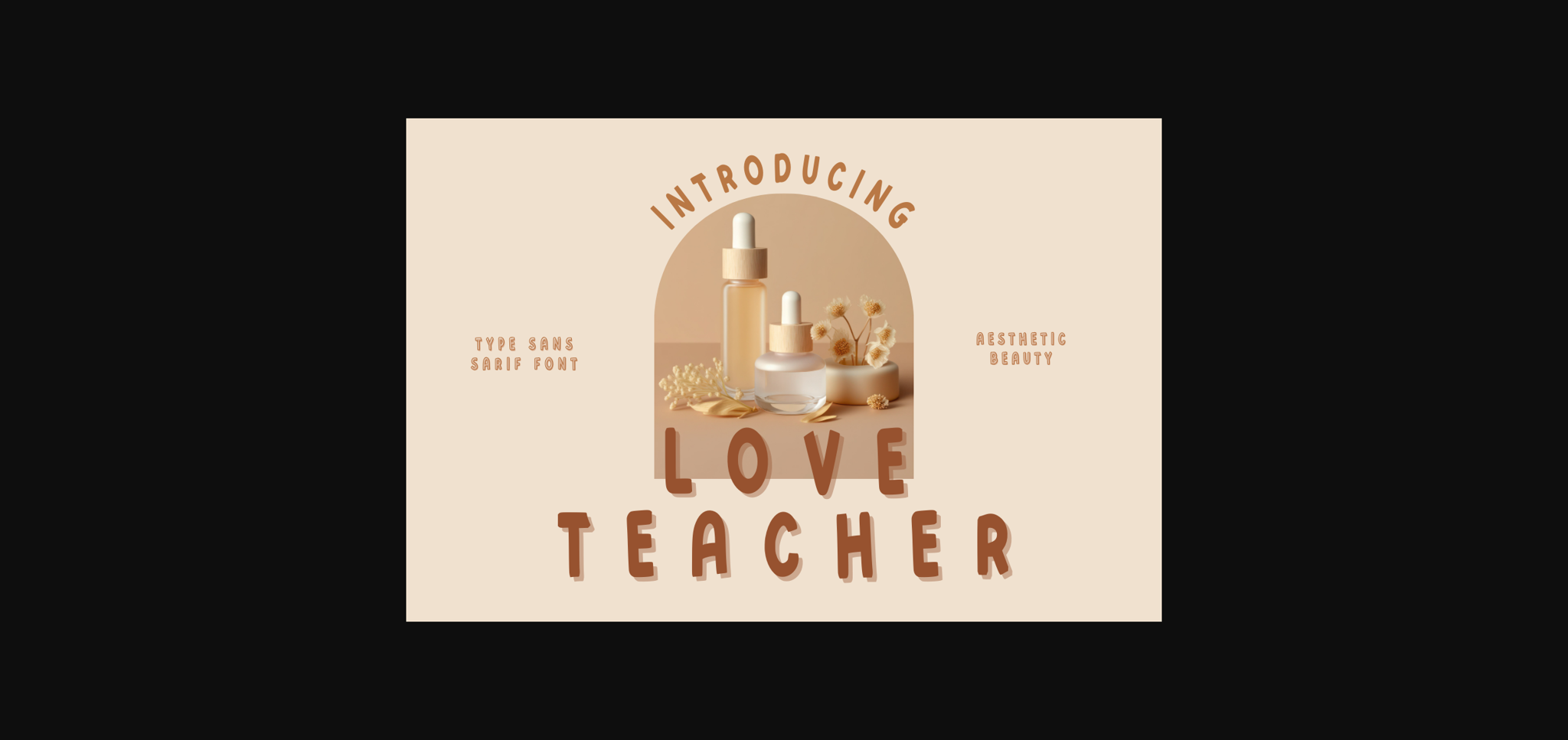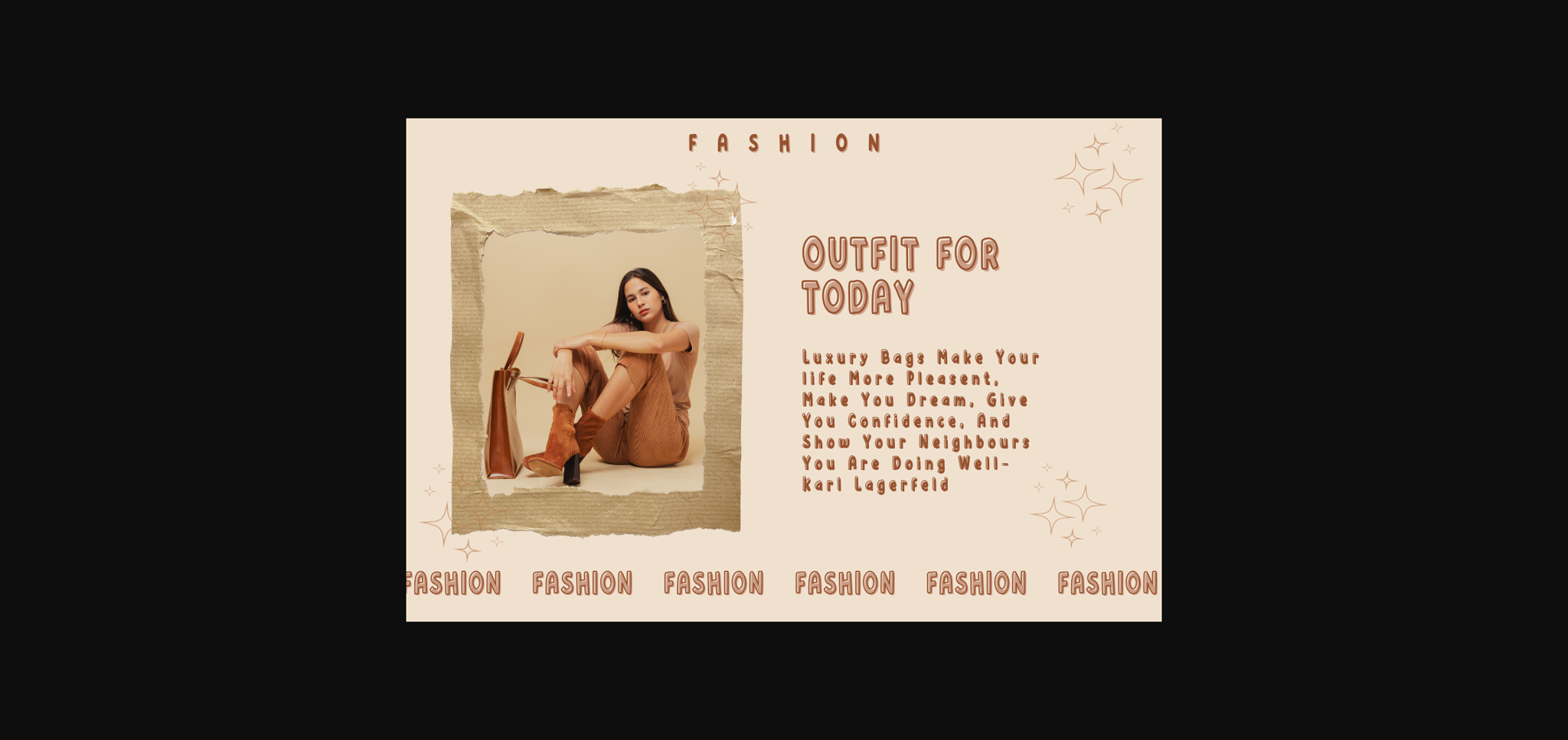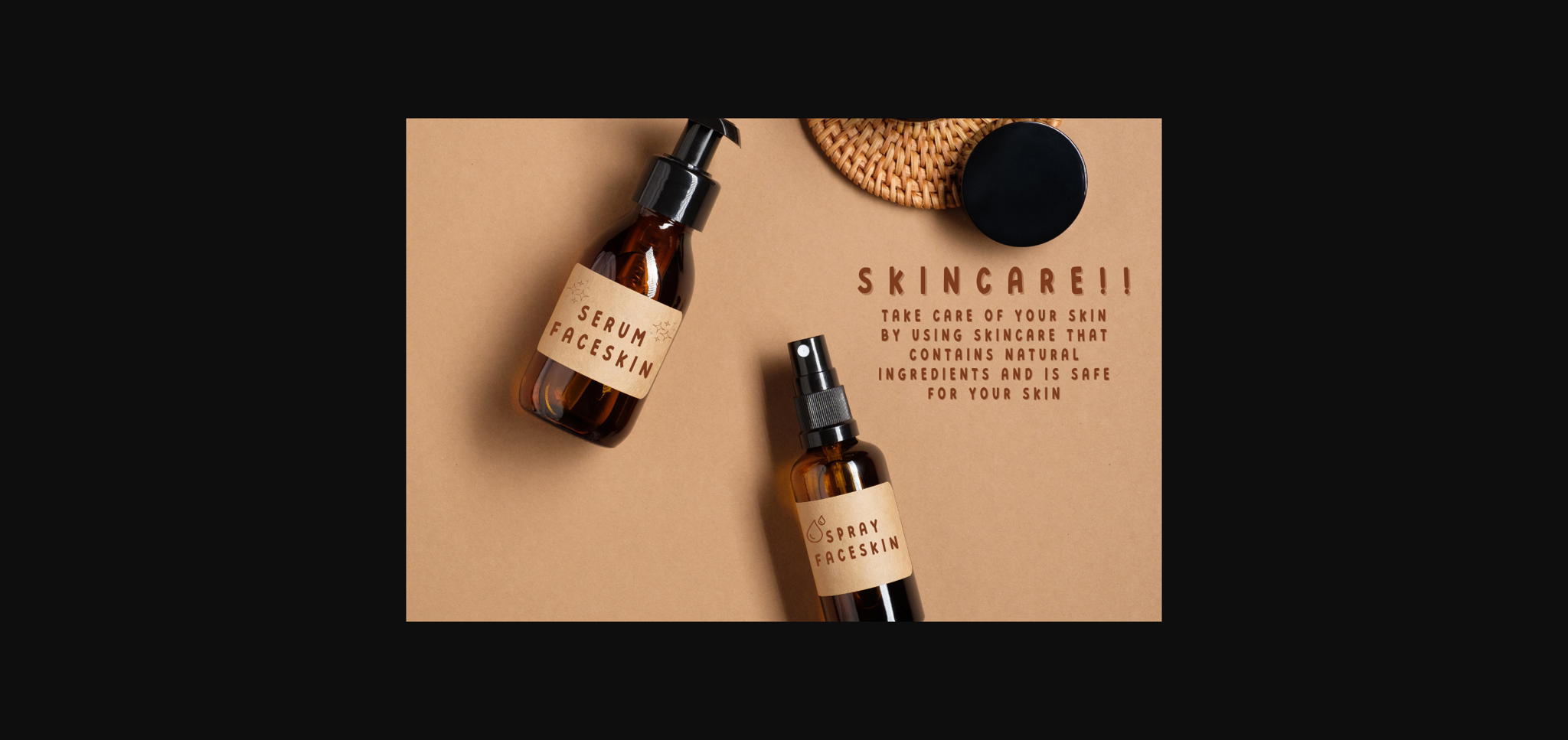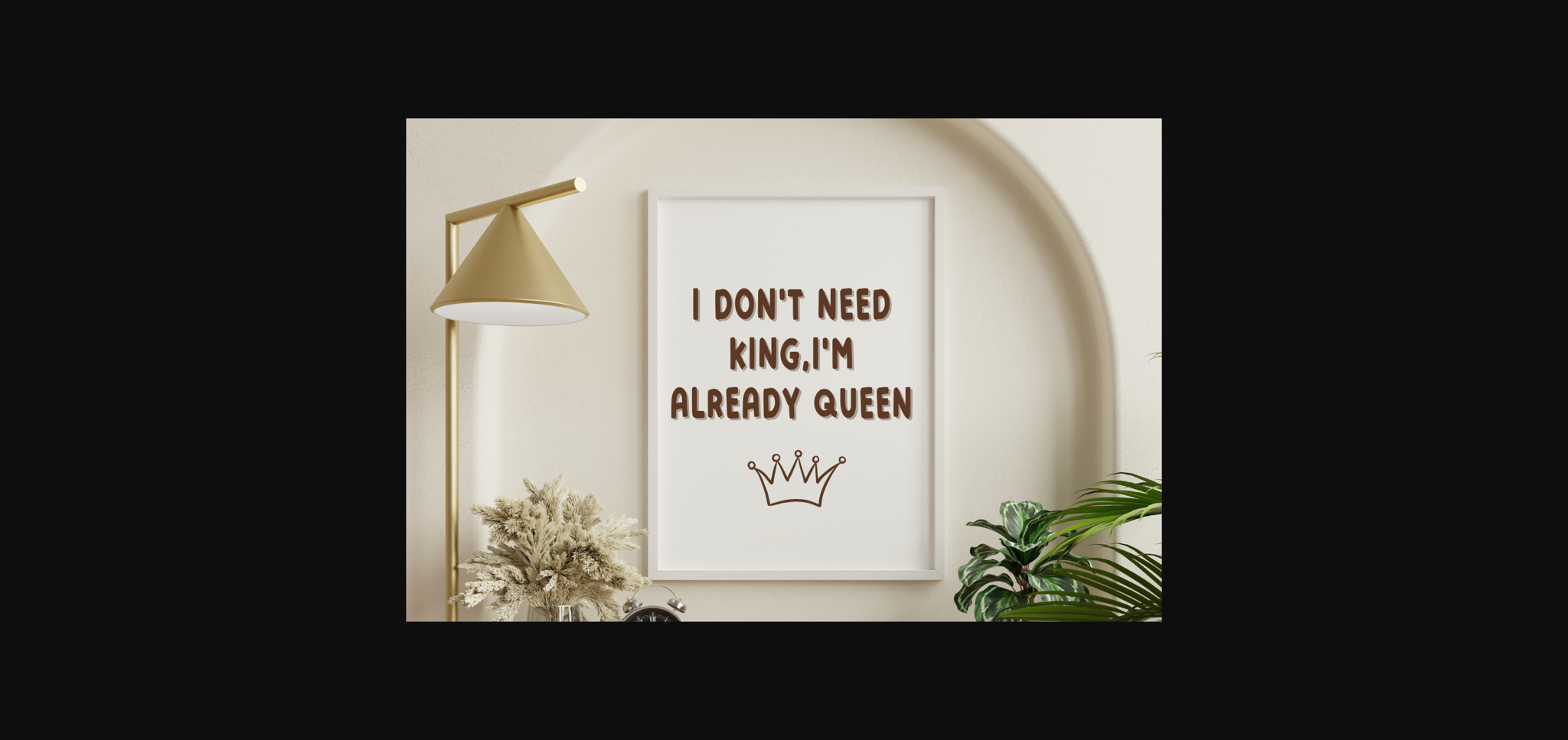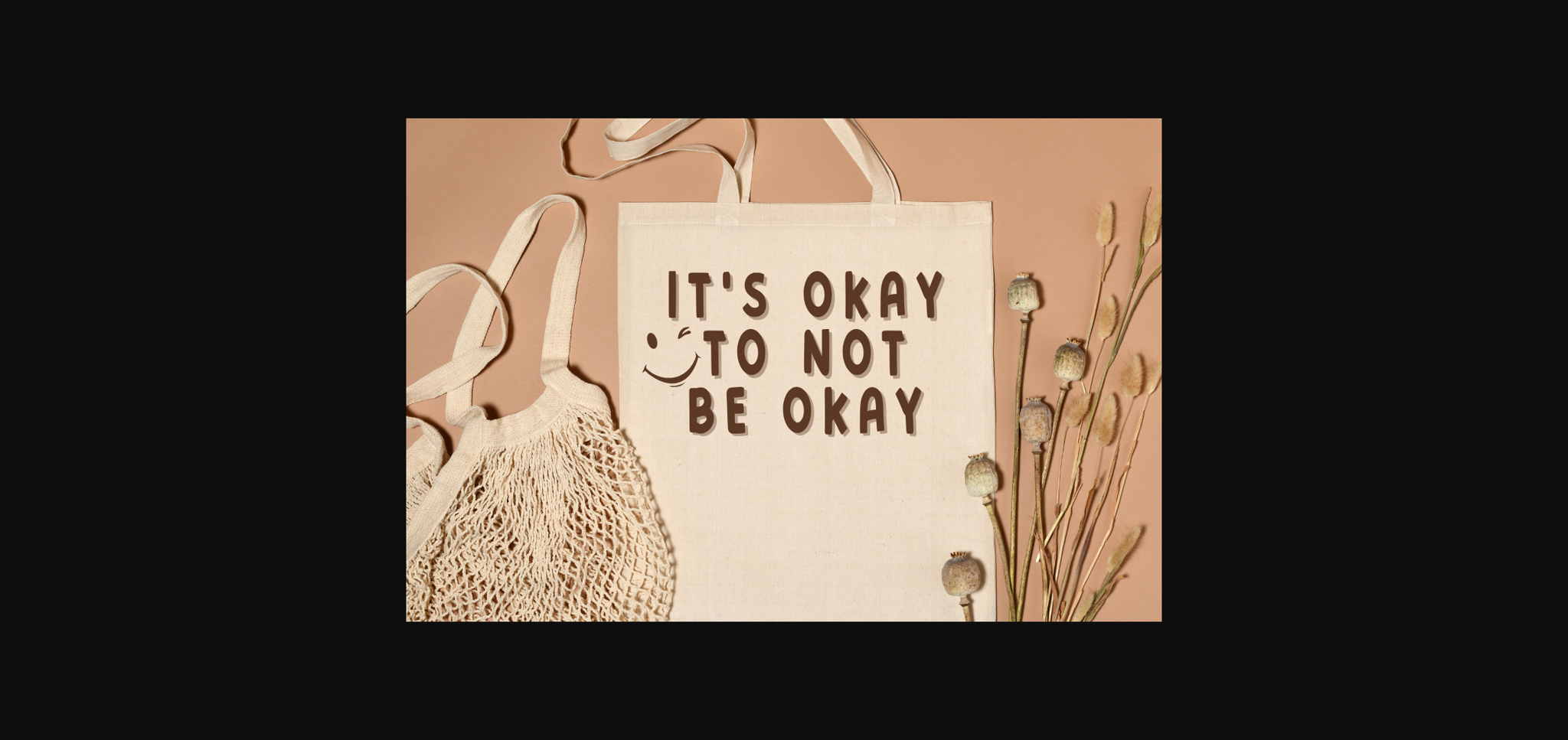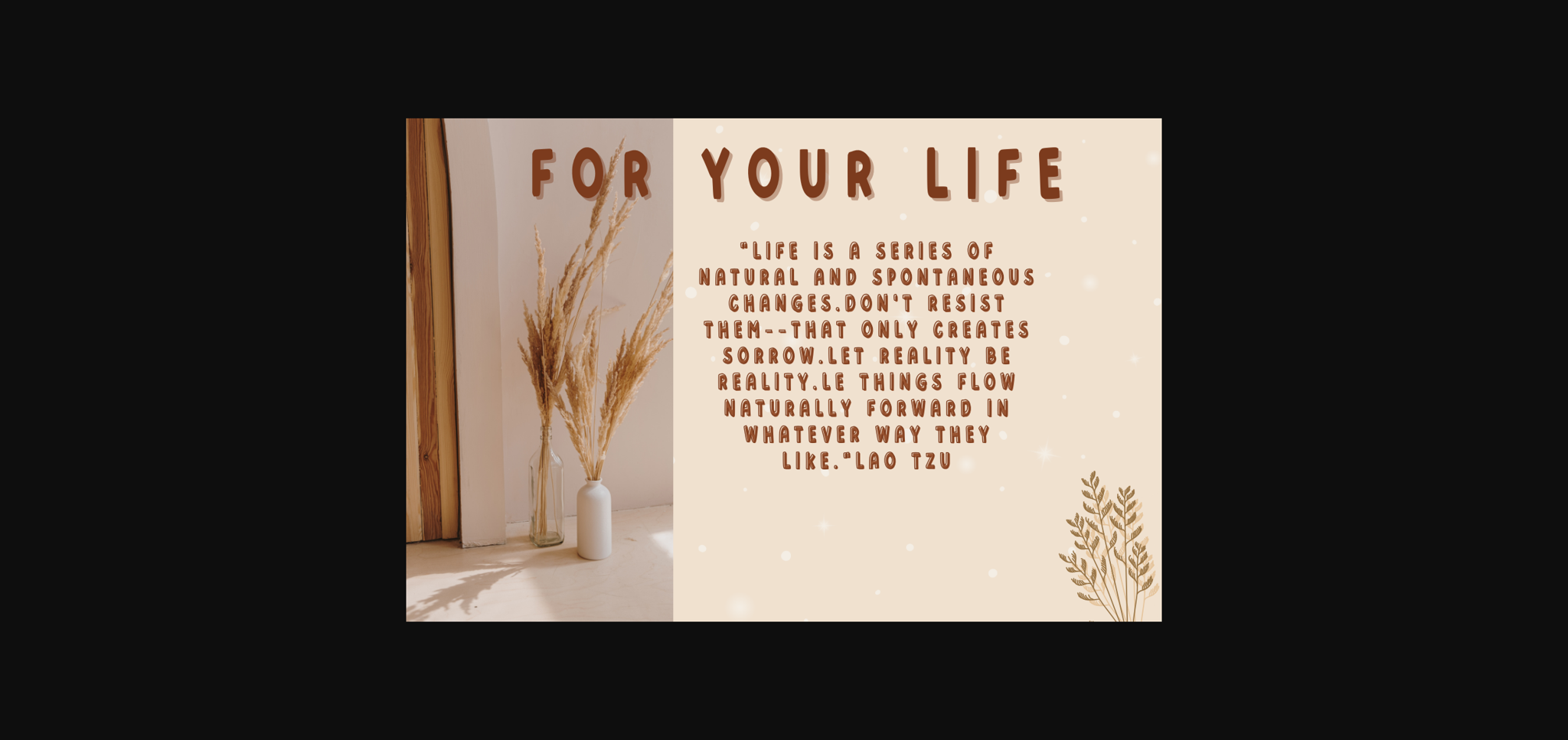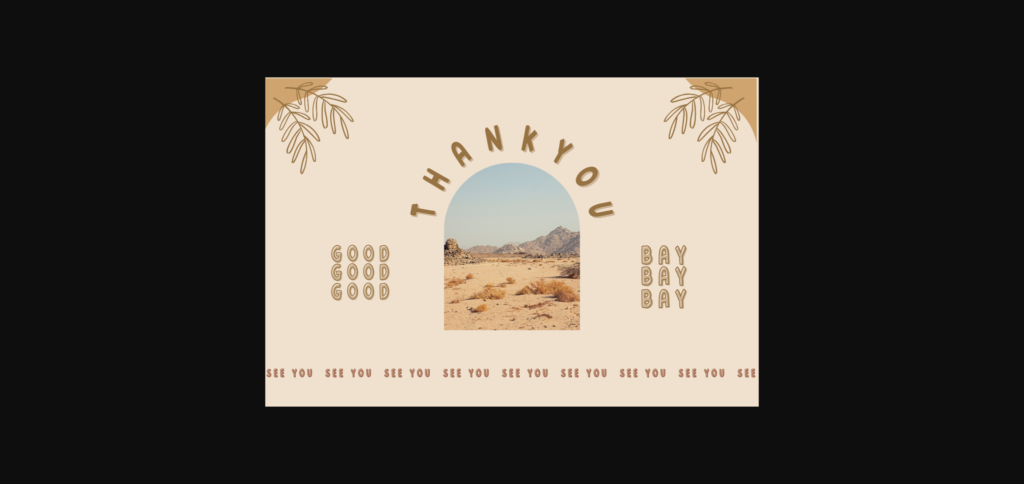
HomeSans Serif FontsLove Teacher Font Sans Serif Fonts Love Teacher Font FacebookTwitterPinterestWhatsApp 1 of 9 ... Love Teacher Font Poster 2... Love Teacher Font Poster 3... Love Teacher Font Poster 4... Love Teacher Font Poster 5... Love Teacher Font Poster 6... Love Teacher Font Poster 7... Love Teacher Font Poster 8... Love Teacher Font Poster 9... About Love Teacher Font Love Teacher is a cute and adorable sans serif font. Perfect for social media, posters, stickers, notebooks and so much more. DOWNLOAD NOW 103 0 People also explored Oh Beauty Font LL Mountain Font Camerichi Font Amigos Font Be You Font Rowley Script Font Flamingo Tropical Font Solaris Font Tahoe Font Lovely Day Font Blackstone Font Rosalinda Script Font TagsLove Teacher Font Previous articlePink Rabbit FontNext articleLove Irish Font LEAVE A REPLY Cancel reply Comment: Please enter your comment! Name:* Please enter your name here Email:* You have entered an incorrect email address! Please enter your email address here Website: Save my name, email, and website in this browser for the next time I comment. Unlock Endless Creativity with the FREE September Clipart Huge Bundle (Valued at $700!) Personal Use Free Sunflower Personal Use Free Read more Gonestones Personal Use Free Read more Eric”s Personal Use Free Read more Baby Mollusca Personal Use Free Read more BLOG The 10 Best Handwriting Fonts to Add Personality to Your Designs 10 of the Best Handwriting Fonts for Adding Personality to Your Designs There will undoubtedly be no other better choice than handwriting fonts to give... Where to Buy American Fonts Online in 2024 Transform Your Website: Elevate Your Typography with 7 Best Web Font Generators Using Fonts in Digital Marketing: Tips to Strengthen Your Brand Identity